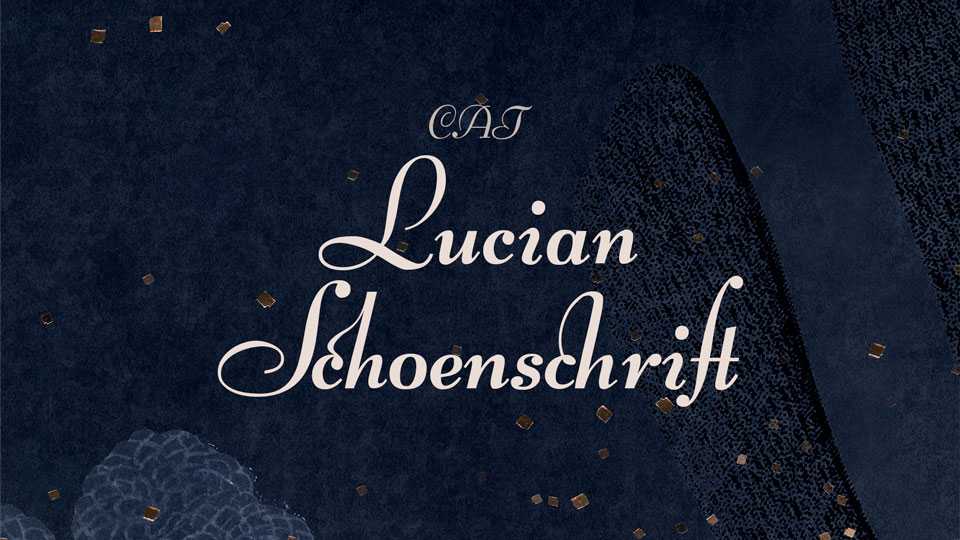
Download Lucian Schoenschrift font, an elegant calligraphy script, inspired by Bernhard Schoenschrift typeface by Lucian Bernhard, 1928. The font is well suited for more formal invitations, headlines and subtitles, for diplomas and certificates.